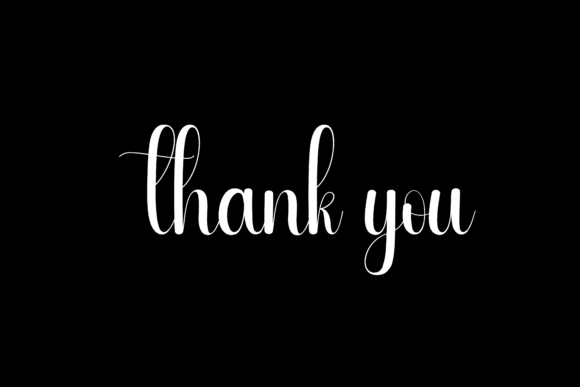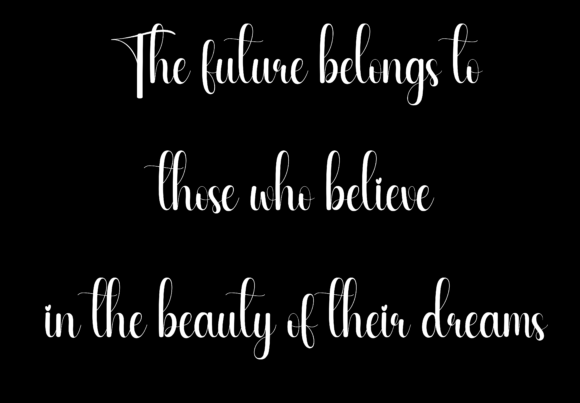
| 👤 Author | Infontree |
That’s why we’re excited to introduce the Autumn Font, a remarkably streamlined and minimalist script font that adds a touch of sophistication to any design. With its refined lettering, the Autumn Font is the perfect companion for designers looking to elevate their work to the next level. Whether you’re creating wedding invitations, stationery art, or social media updates, this font is sure to bring a touch of magic to your designs.
So why settle for ordinary when you can have extraordinary? Let the Autumn Font be your guide to creating masterpieces that leave a lasting impression.
Autumn Font Key Features
- Font Family: Autumn Font is a script font family designed to evoke the feeling of autumn leaves.
- Size: The font family includes multiple weights and styles, ranging from Light to Bold, and includes a range of sizes to accommodate various design needs.
- Unique Characteristics: Features a unique, hand-painted style with intricate details and subtle texture, giving it a warm and inviting feel.
Designer Review: Autumn Font
Overall, I’m impressed with the Autumn Font, a beautiful script font that captures the essence of the changing seasons. Here’s what I like about it:
- ✨ Elegant and refined letterforms that evoke a sense of sophistication
- ✨ Beautiful ligatures that add a touch of whimsy to text
- ✨ Versatile and suitable for a wide range of designs, from invitations to packaging
- ✨ Great for adding a sense of warmth and coziness to digital and print designs
However, there are a few limitations that I’d like to point out:
- ⚠️ Limited font sizes may not display as intended on smaller screens or in smaller font sizes
- ⚠️ Some characters, like the ampersand, may not be available in the standard font set
- ⚠️ May not be suitable for text-heavy designs, as the font can be quite ornate
Overall, I think the Autumn Font is a beautiful addition to any designer’s toolkit. While it has its limitations, its unique charm and versatility make it a great choice for the right projects.
Tips for Getting the Most Out of Autumn Font
For the best results, use Autumn Font in conjunction with autumn-themed colors and imagery. You can also experiment with different font sizes and styles to create a unique look.
Autumn Font is perfect for:
- Seasonal marketing campaigns
- Autumn-themed event invitations
- Fall-inspired blog posts and social media graphics